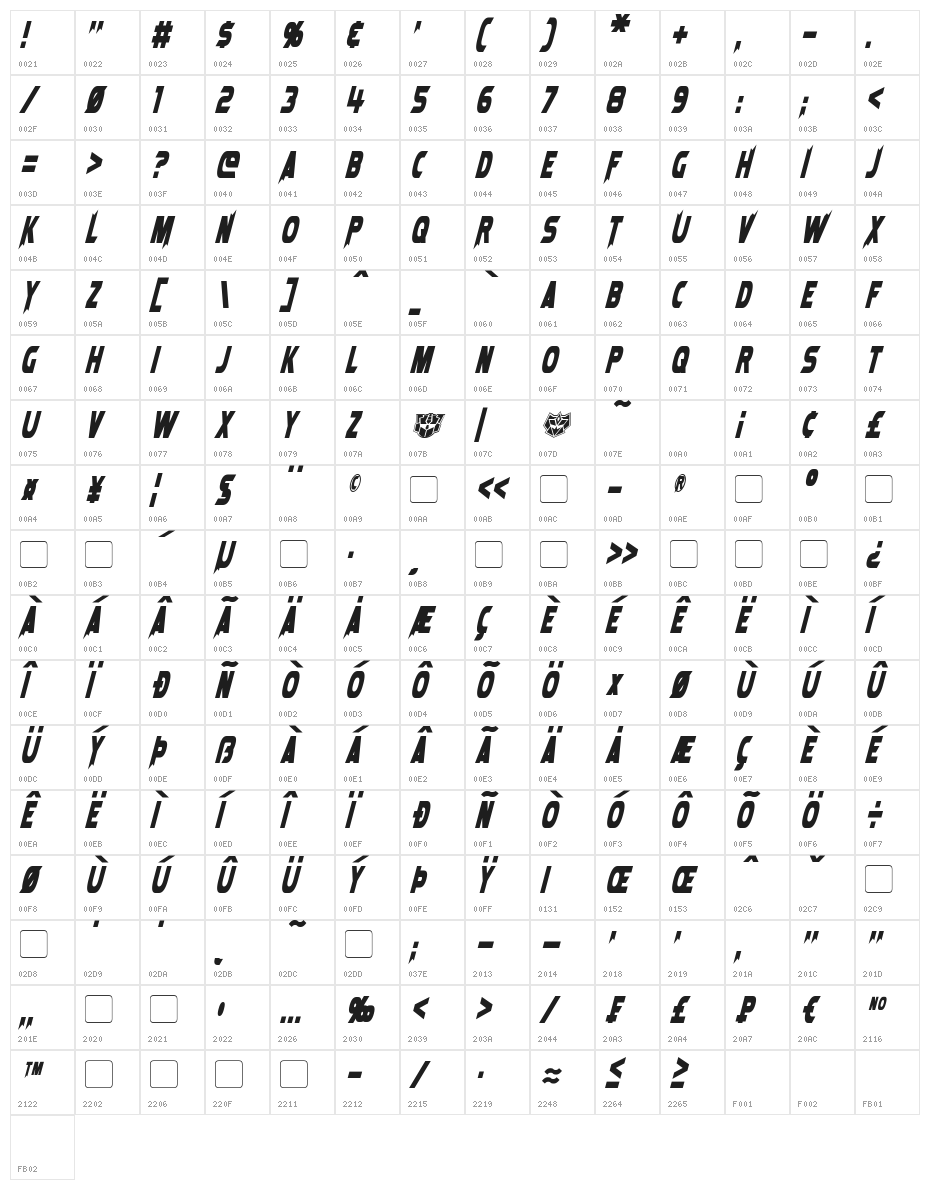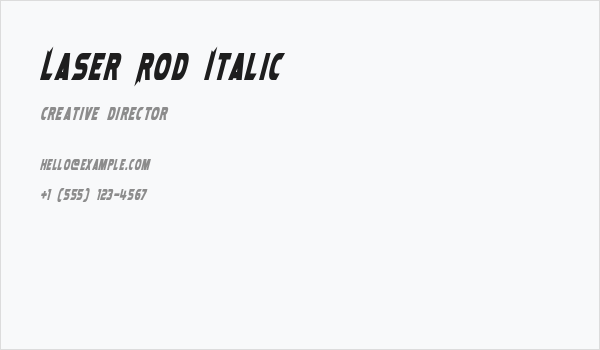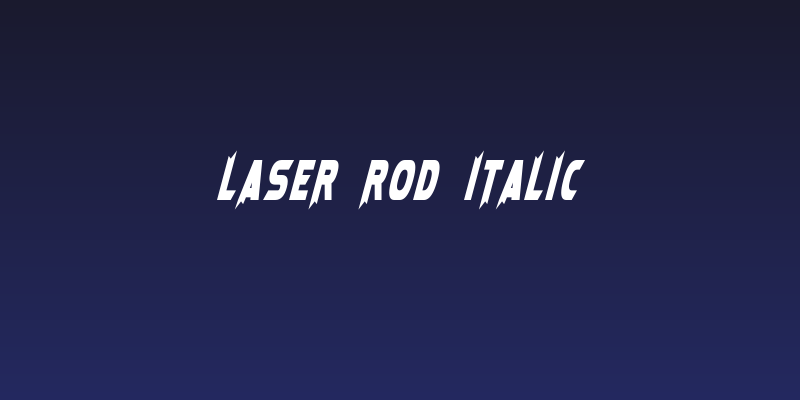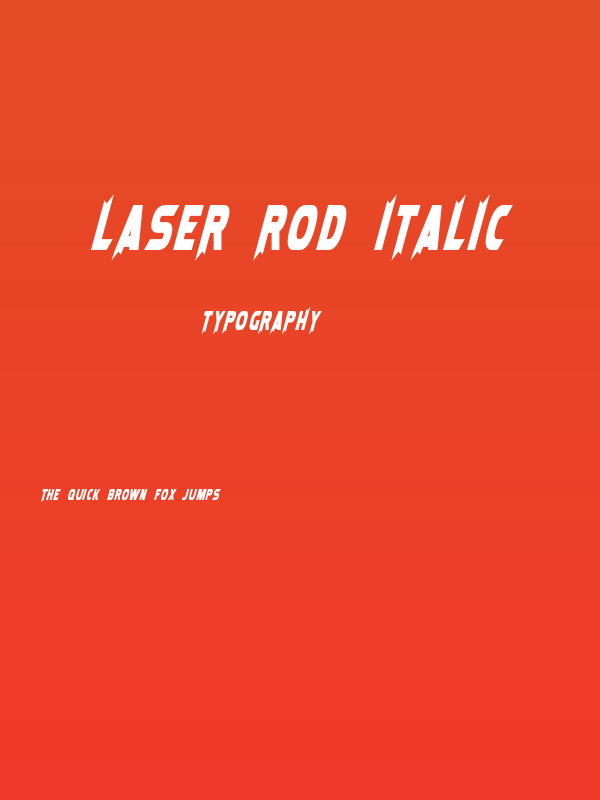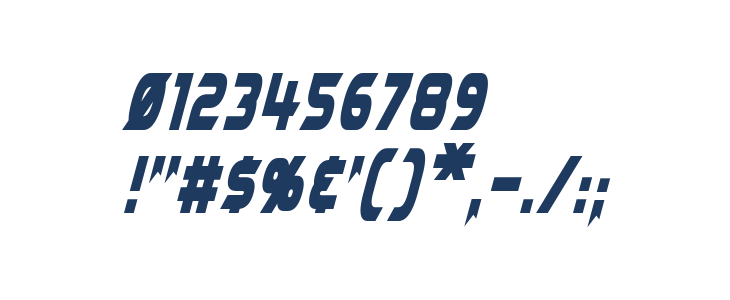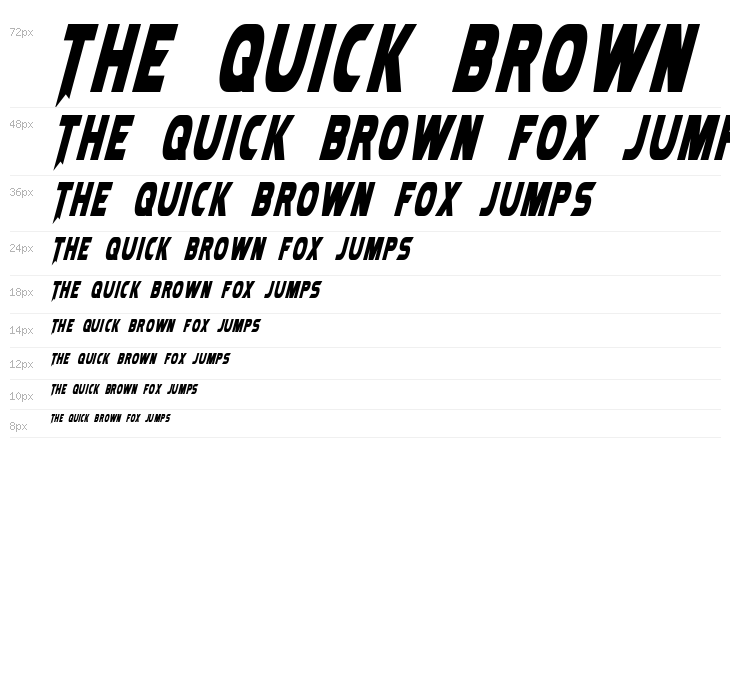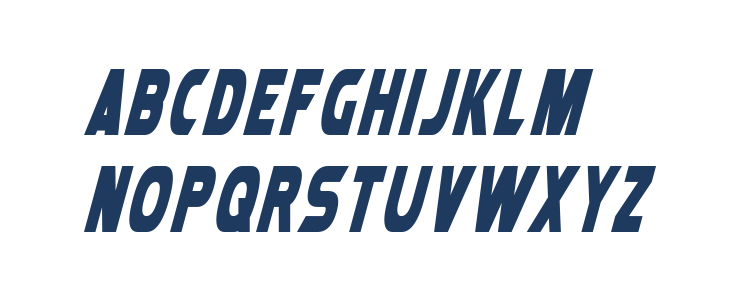
Laser Rod Italic Font
Laser Rod Italic Description
This dynamic and bold font features an italicized style with sharp, angular edges that give it a futuristic and energetic appearance. The characters are slightly slanted, enhancing the sense of motion and speed. The strokes are thick and consistent, providing a strong visual impact. Each letter has unique cutouts and angles, adding to its distinctive and aggressive look. The numbers and special characters maintain the same boldness and angular design, ensuring a cohesive appearance across all glyphs. This font is ideal for projects that require a modern, edgy, and impactful typeface.
| Proposed Projects | Ideal for sports branding, video game titles, sci-fi movie posters, and dynamic advertising campaigns. |